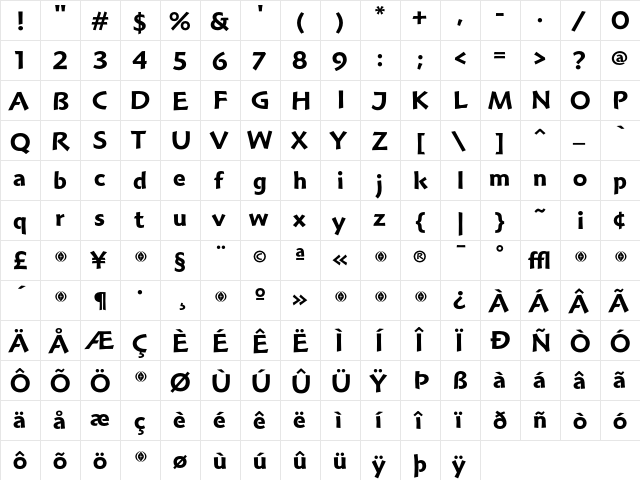
Hoffmann Bold
Design Context for Hoffmann Typeface
Hoffmann is a composed and adaptable typeface that performs quietly and consistently across a wide range of design contexts. Its bold stroke weight gives it real presence on the page.